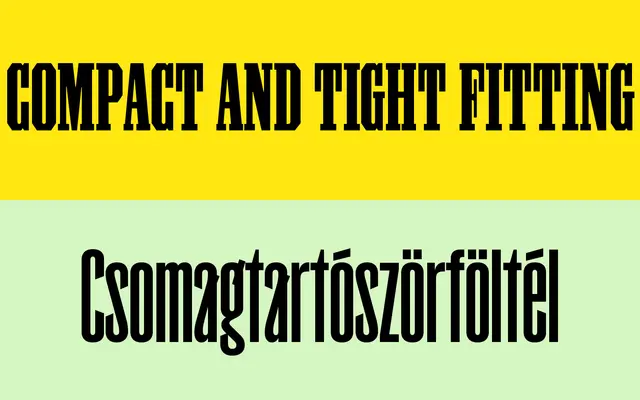
Condensed
Monokrom · Frode Helland · 2023
A family of six condensed display faces united by spatial constraint rather than formal resemblance, spanning grotesque, slab and hybrid constructions drawn from 19th-century printing traditions.
Designed by Frode Helland and released between 2023 and 2025, the family treats limited horizontal space as a generative condition rather than a restriction. Condensed Grotesk reworks the blue-collar worker-printer's staple in three variants with sharp interior corners and open counters; Condensed Antique revives the straight-lined Lettres Egyptiennes Allongées from Laurent et Deberny's ca. 1830–39 specimen; Condensed Alcubierre rotates a compact grotesk construction onto its side for an ultra-extended slab-like form; and Condensed Garland amplifies late 19th-century grotesque hallmarks with diagonally sliced terminals and protruding spurs. The result is an unusually coherent family despite its formal variety.
A family united by spatial constraint rather than formal similarity, spanning condensed grotesque, slab, and hybrid variants designed for high-impact display and poster use. The display category best captures the family's expressive, attention-grabbing intent across its diverse subfamilies.